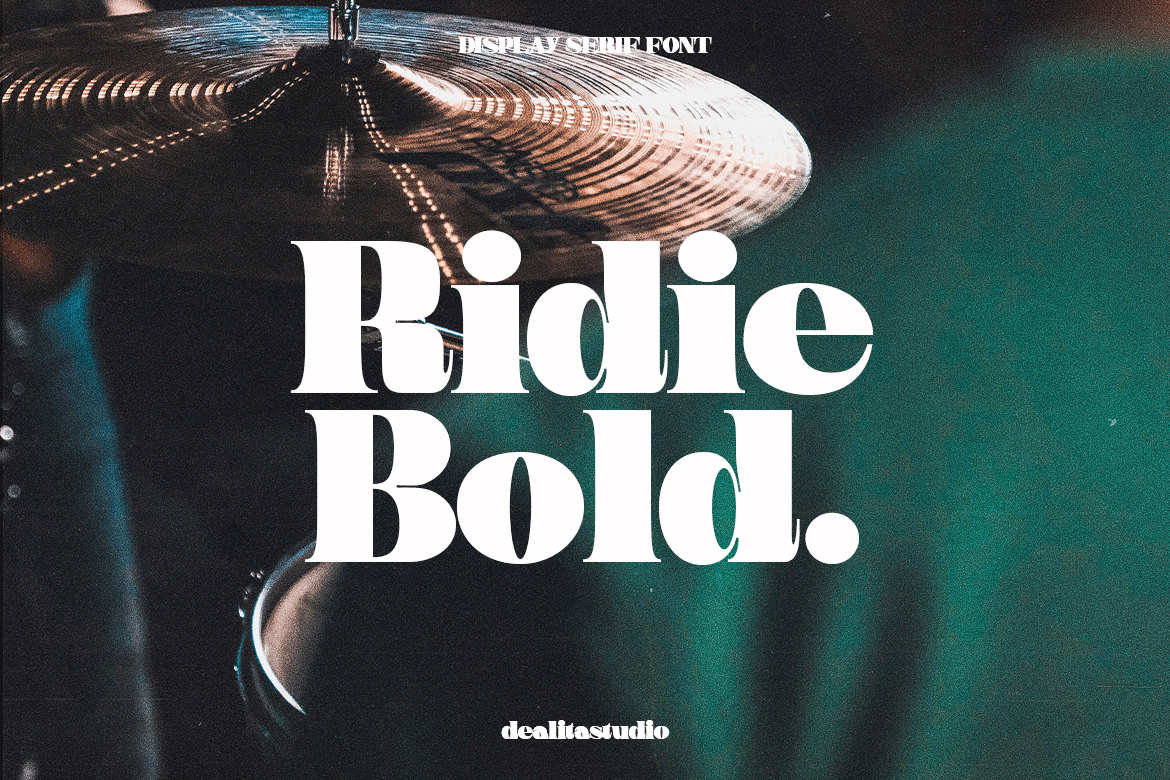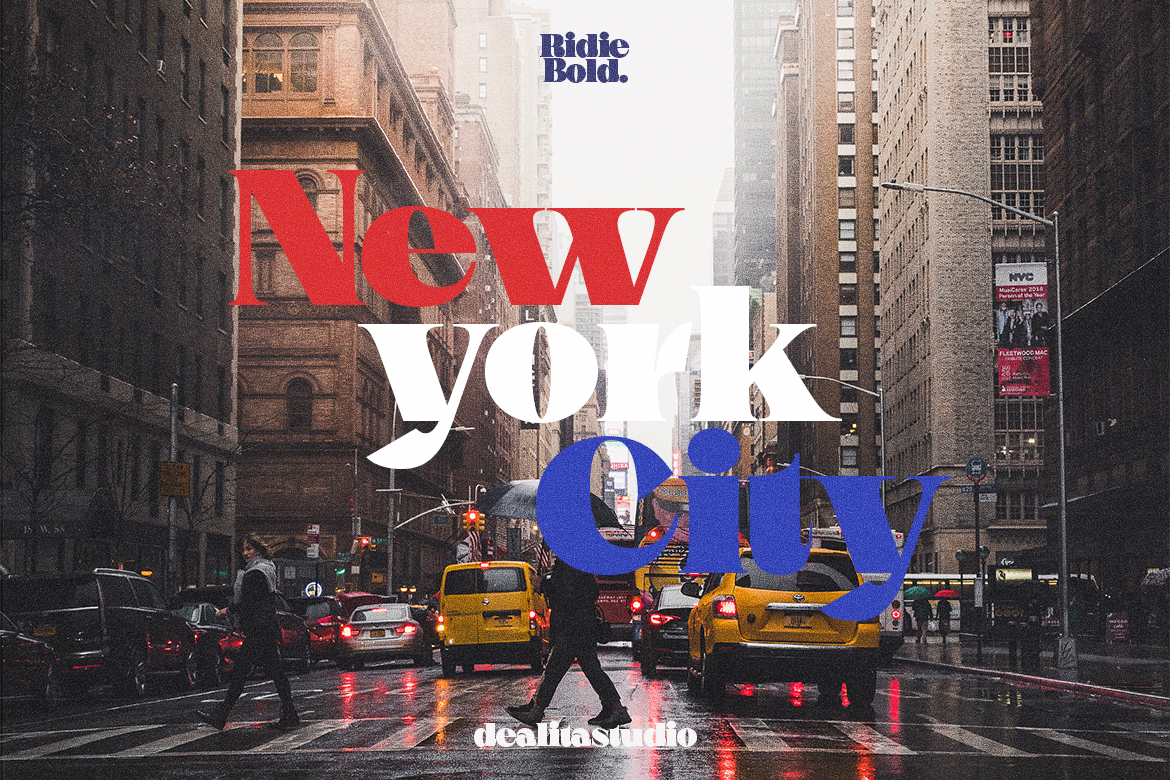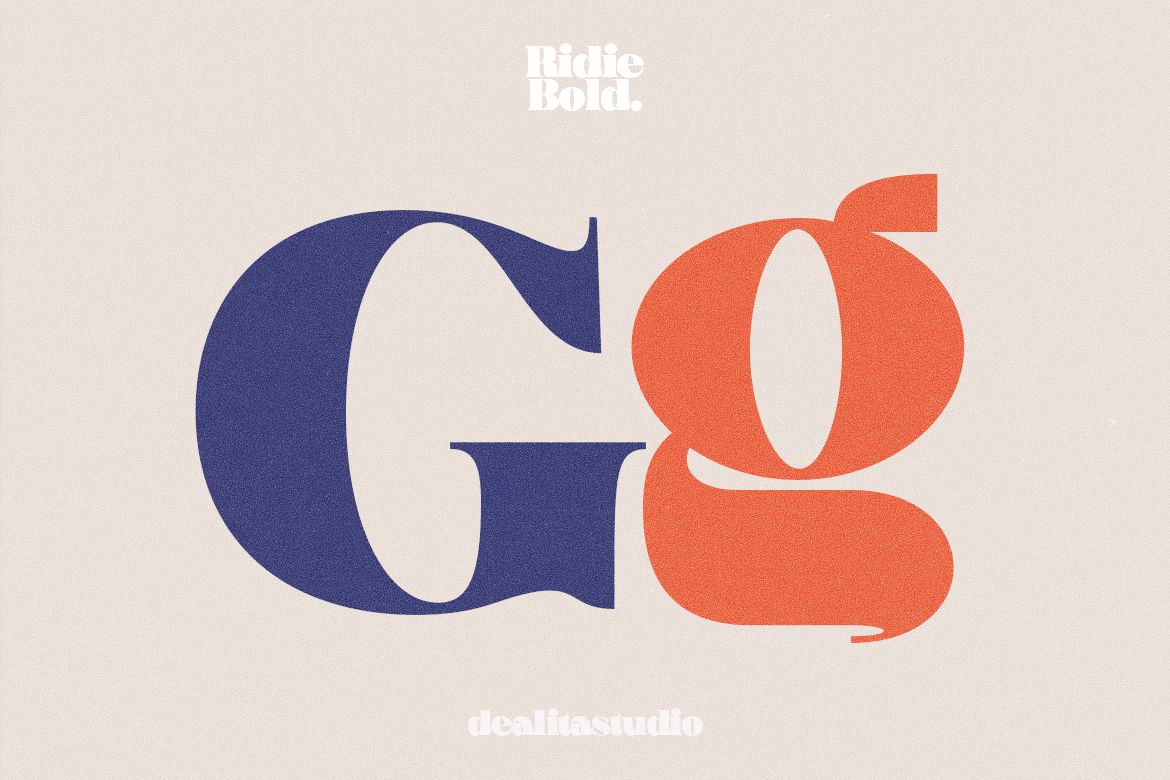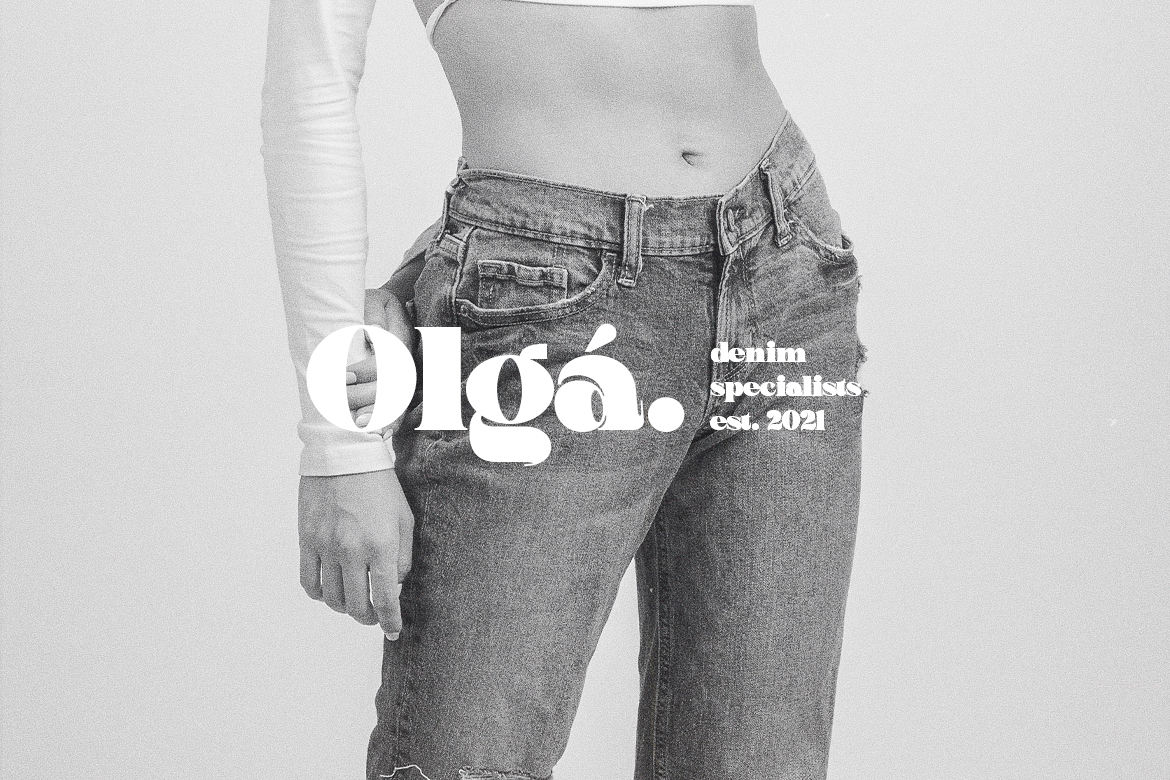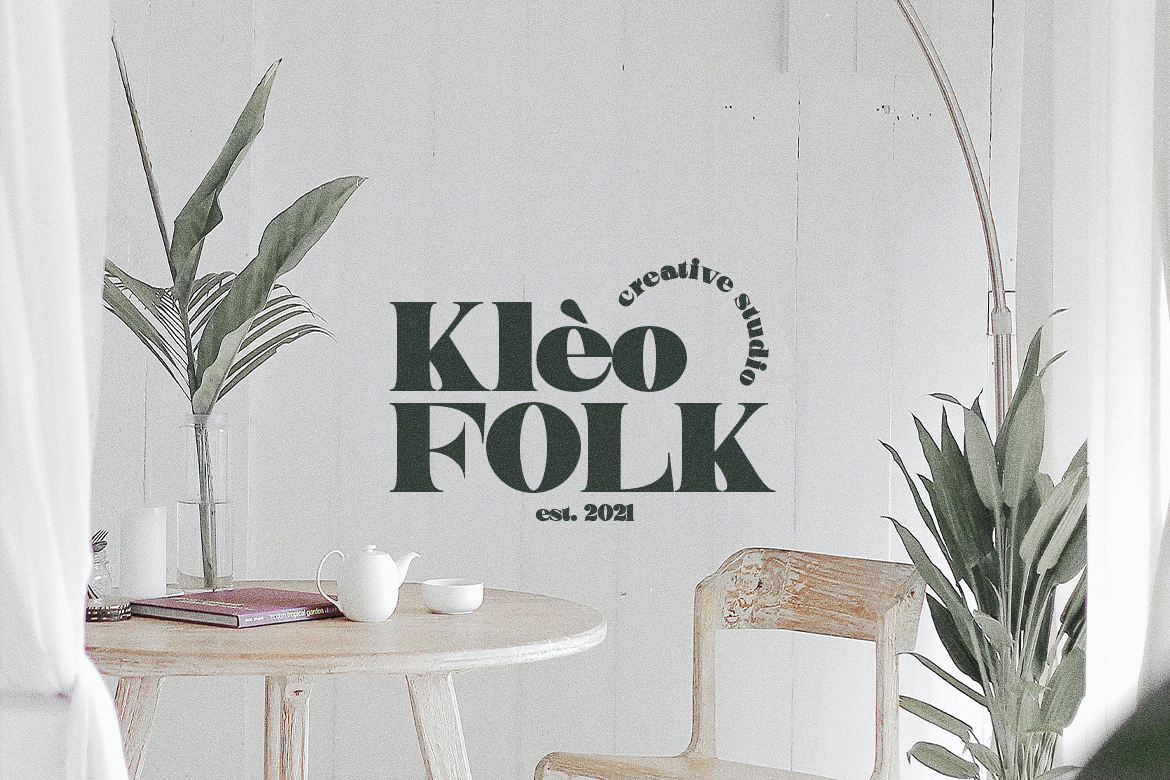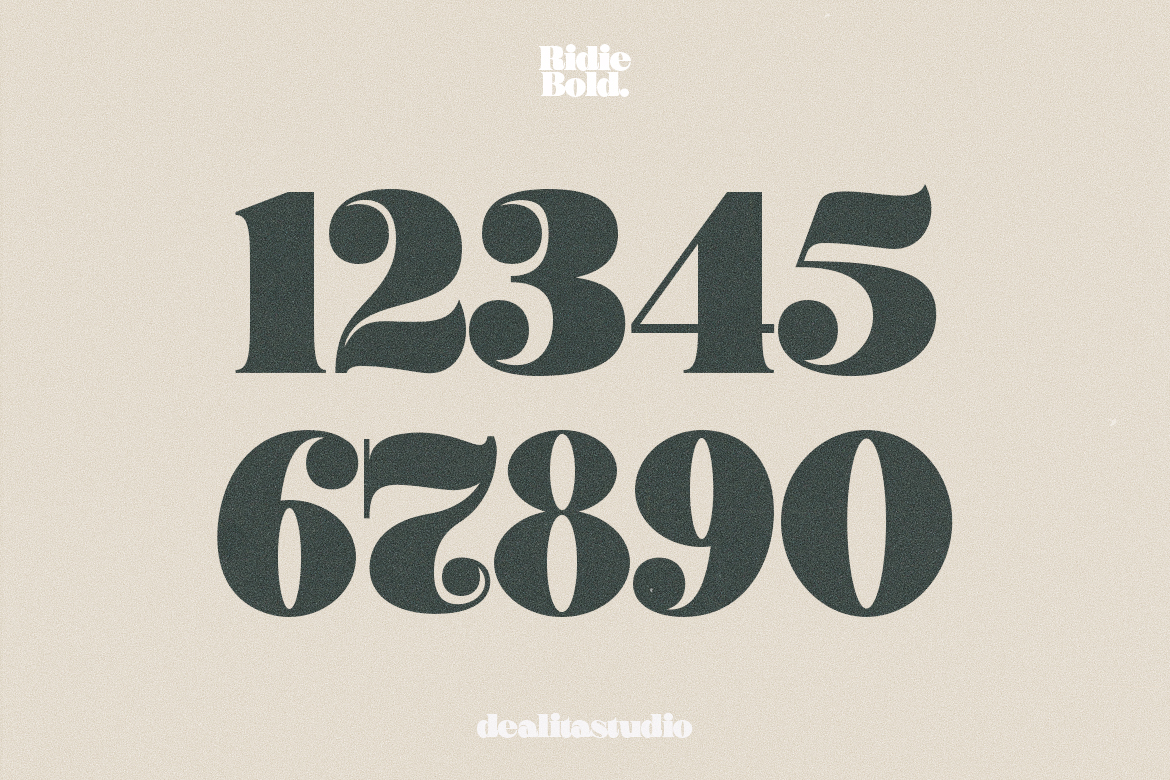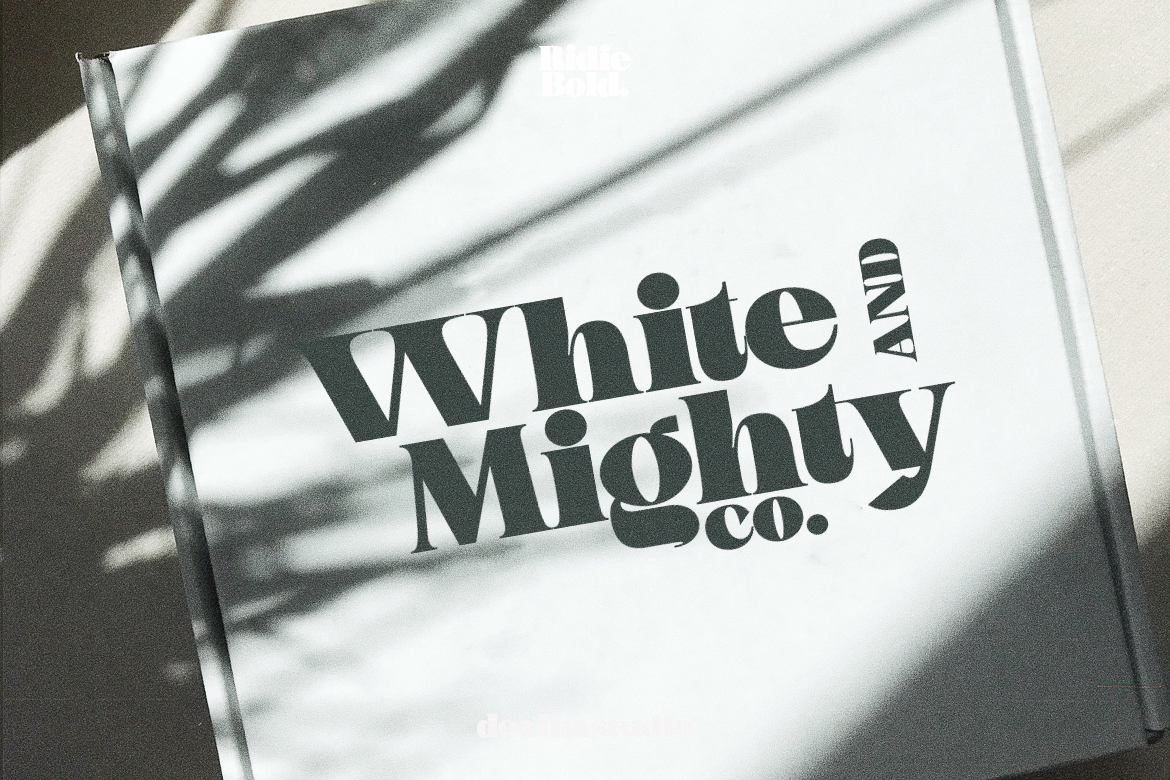
Ridie | Bold Display Serif Font for Maximum Impact
Ridie is a bold display serif font designed for maximum impact and dramatic presence. With its strong contrast, sharp serifs, and commanding structure, Ridie is perfect for headlines, posters, magazine covers, and branding projects that demand immediate attention and authority.
Tailored for editorial design and high-fashion campaigns, Ridie adds a sense of unapologetic strength and confidence to your typography. Its bold character makes it the ultimate choice for projects where the text itself must become the focal point—whether on a giant billboard, a striking album cover, or a luxury brand identity.
Ideal Applications
- Editorial headlines and striking magazine covers
- High-fashion and luxury campaign titles
- Bold statement logos and monumental brand marks
- Poster design and large-scale advertising typography